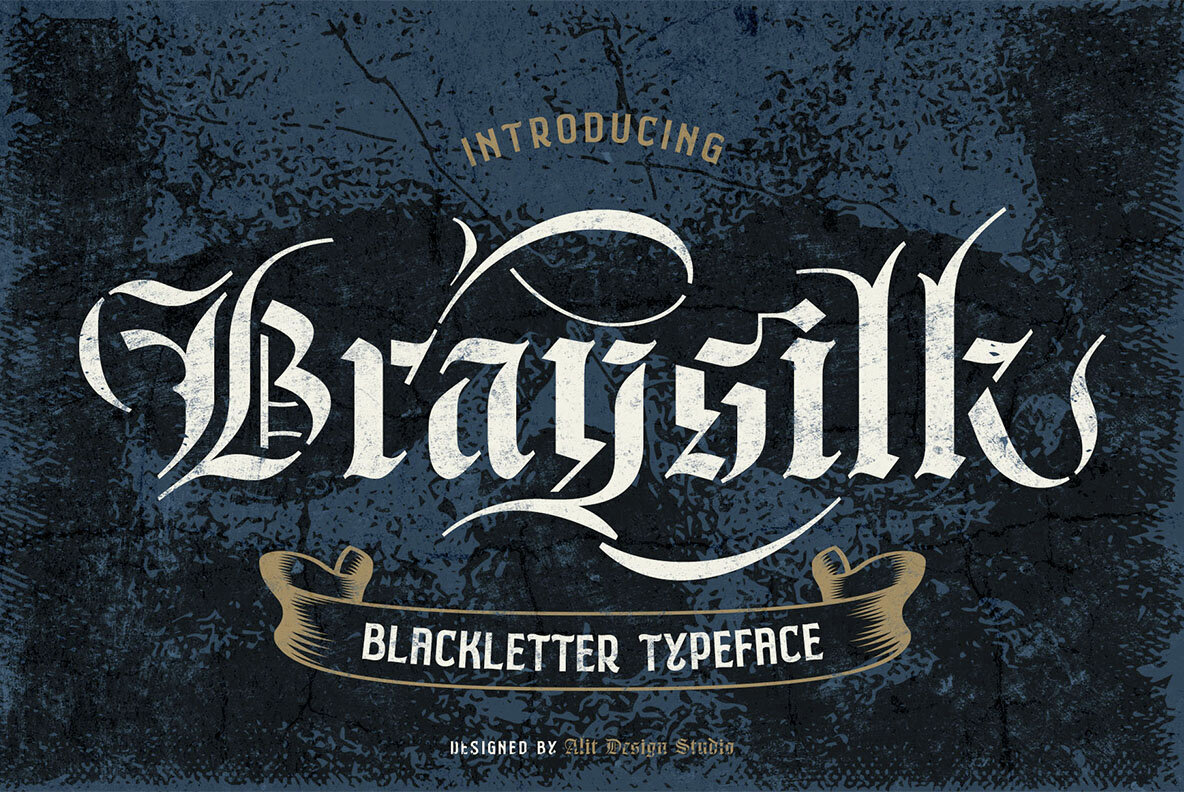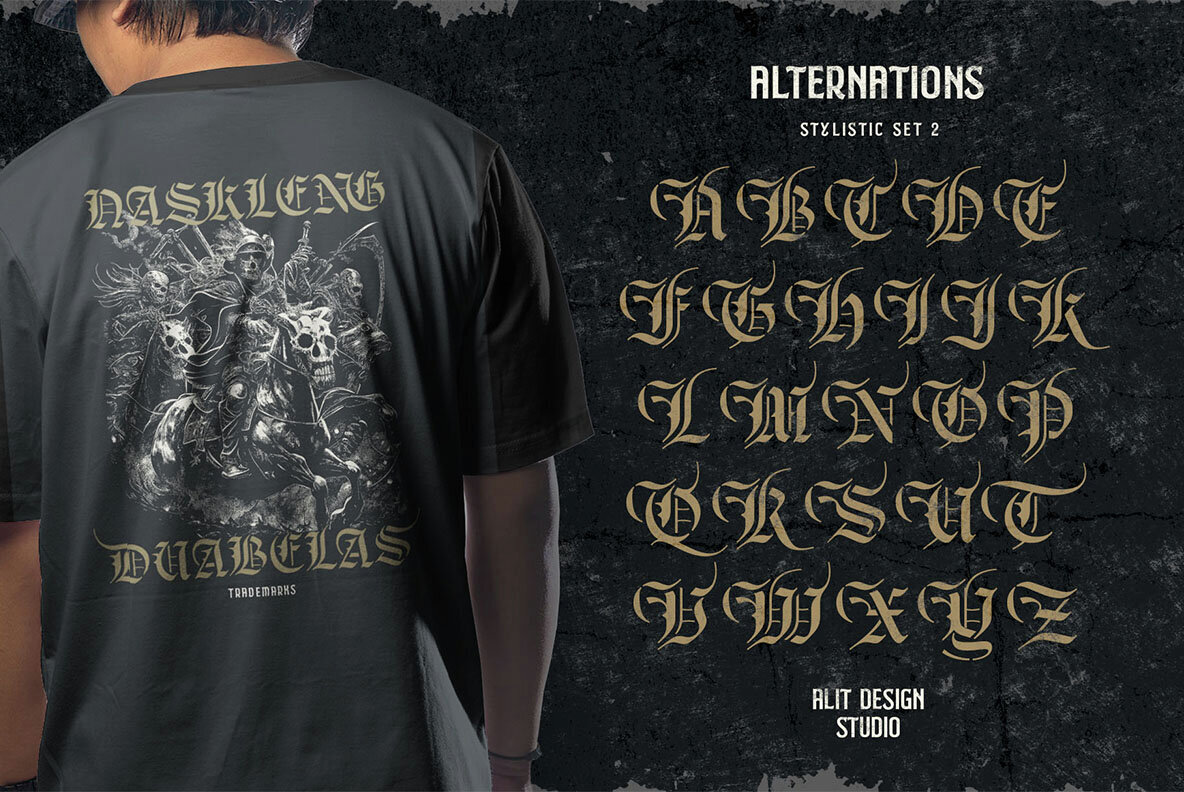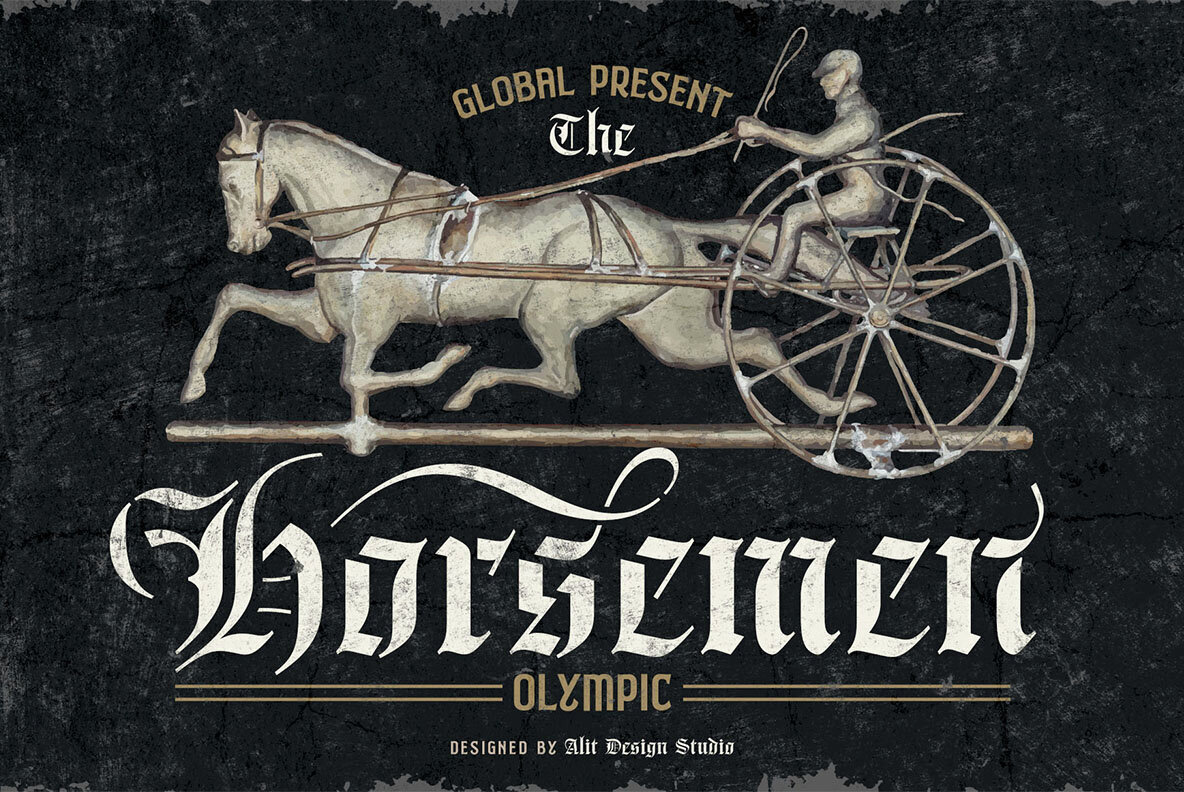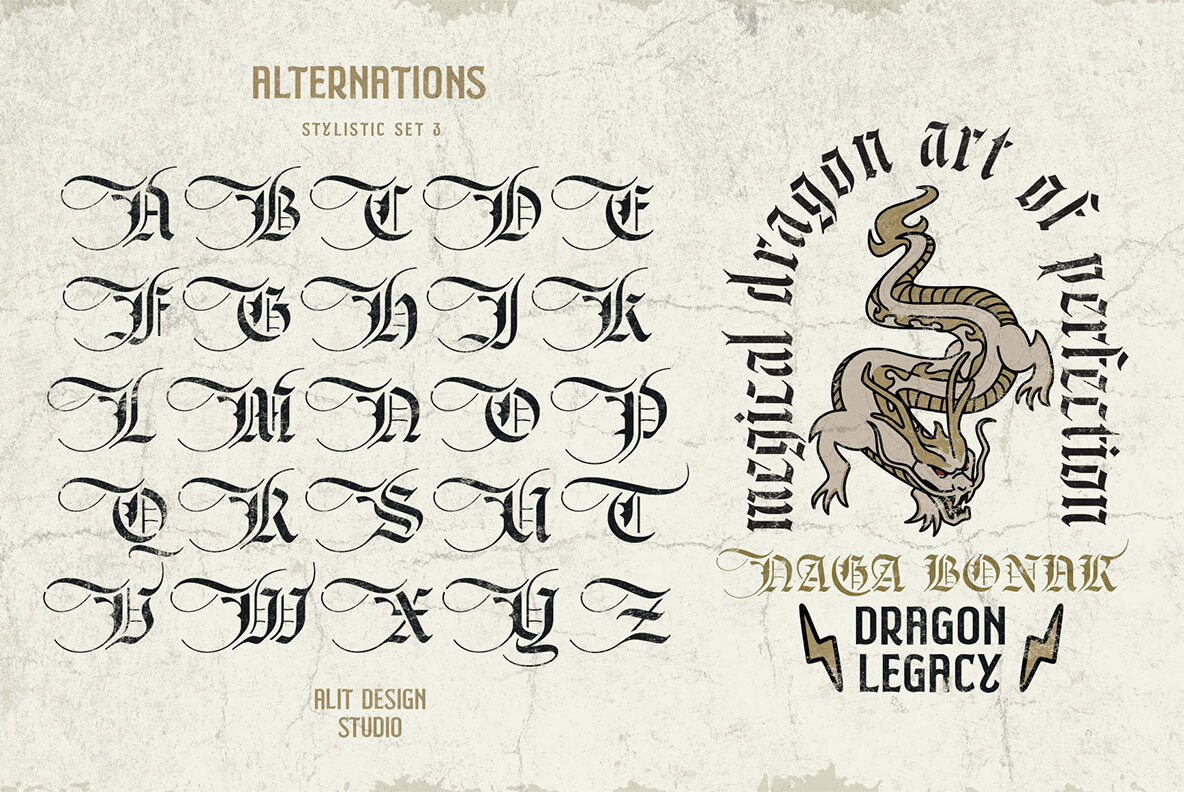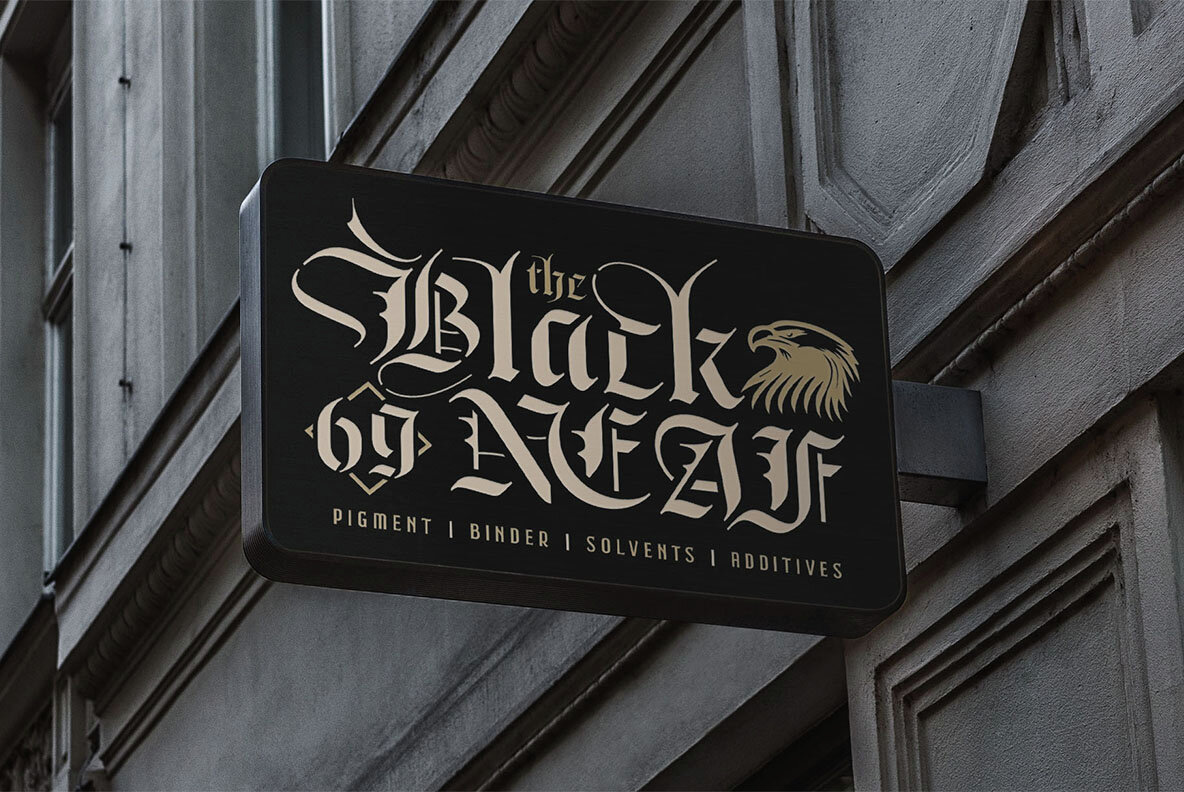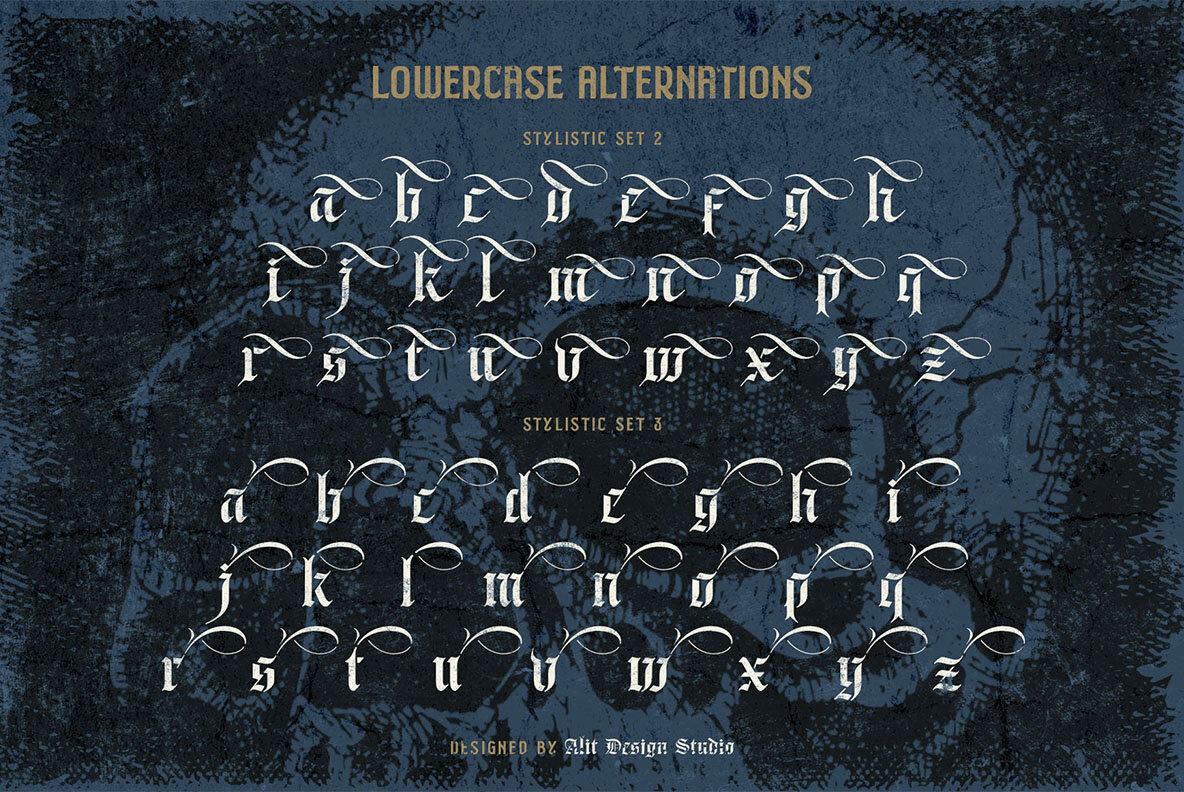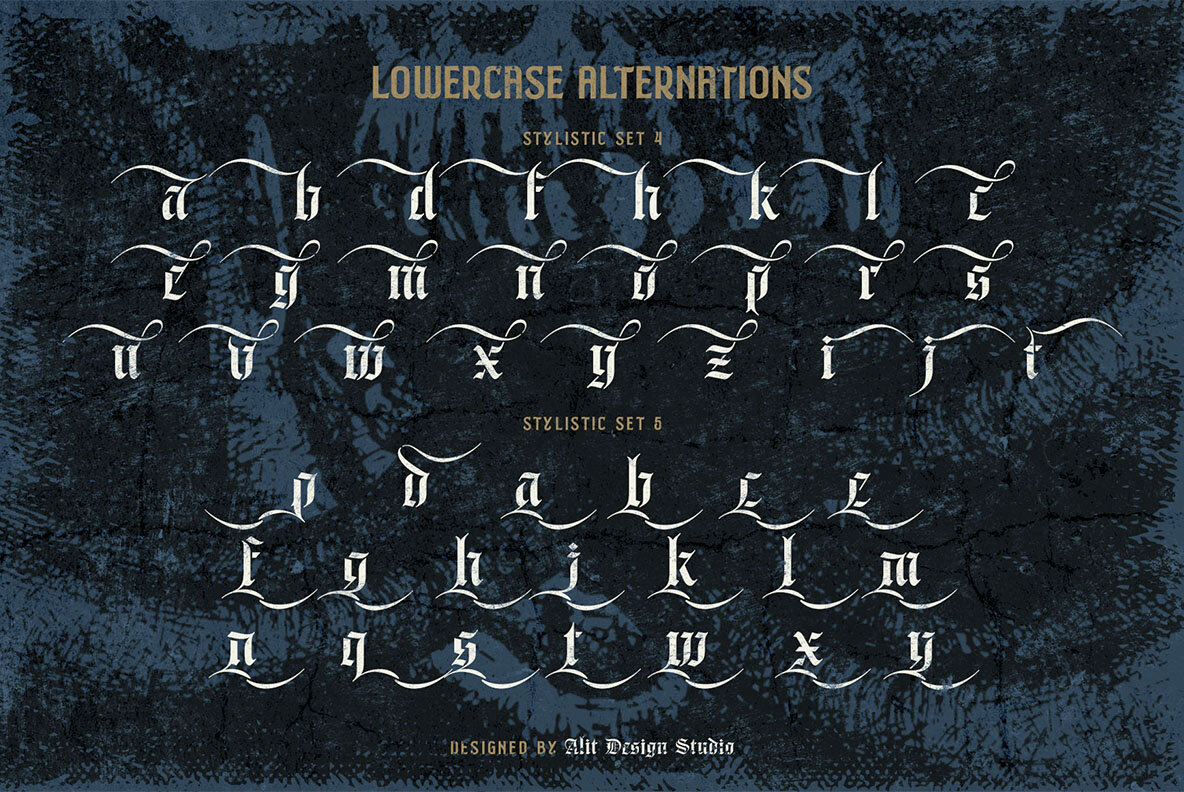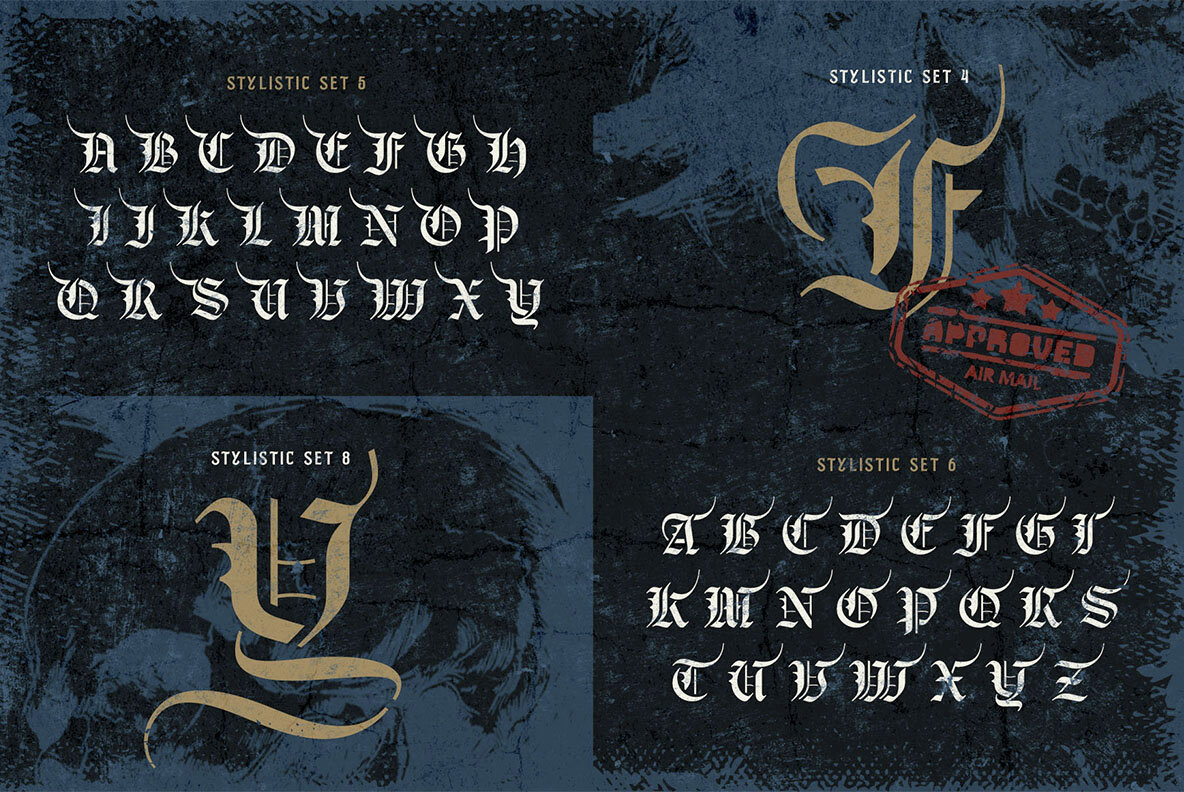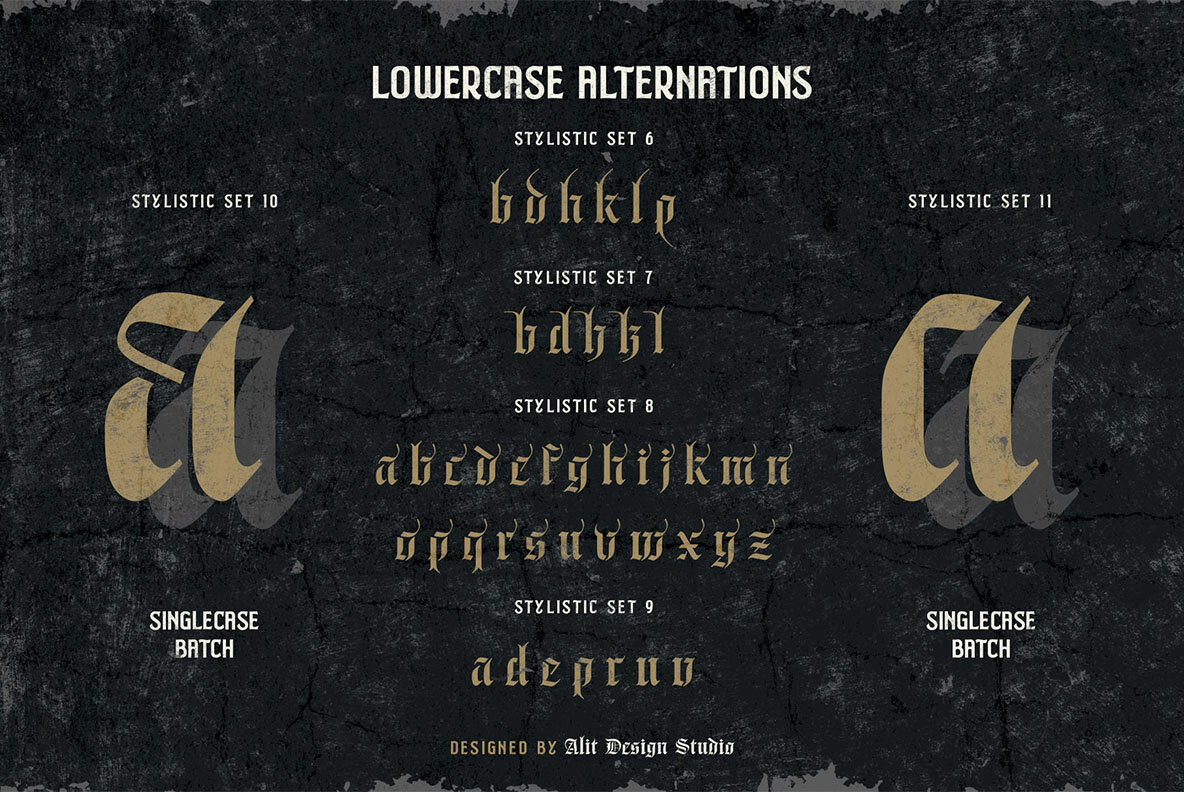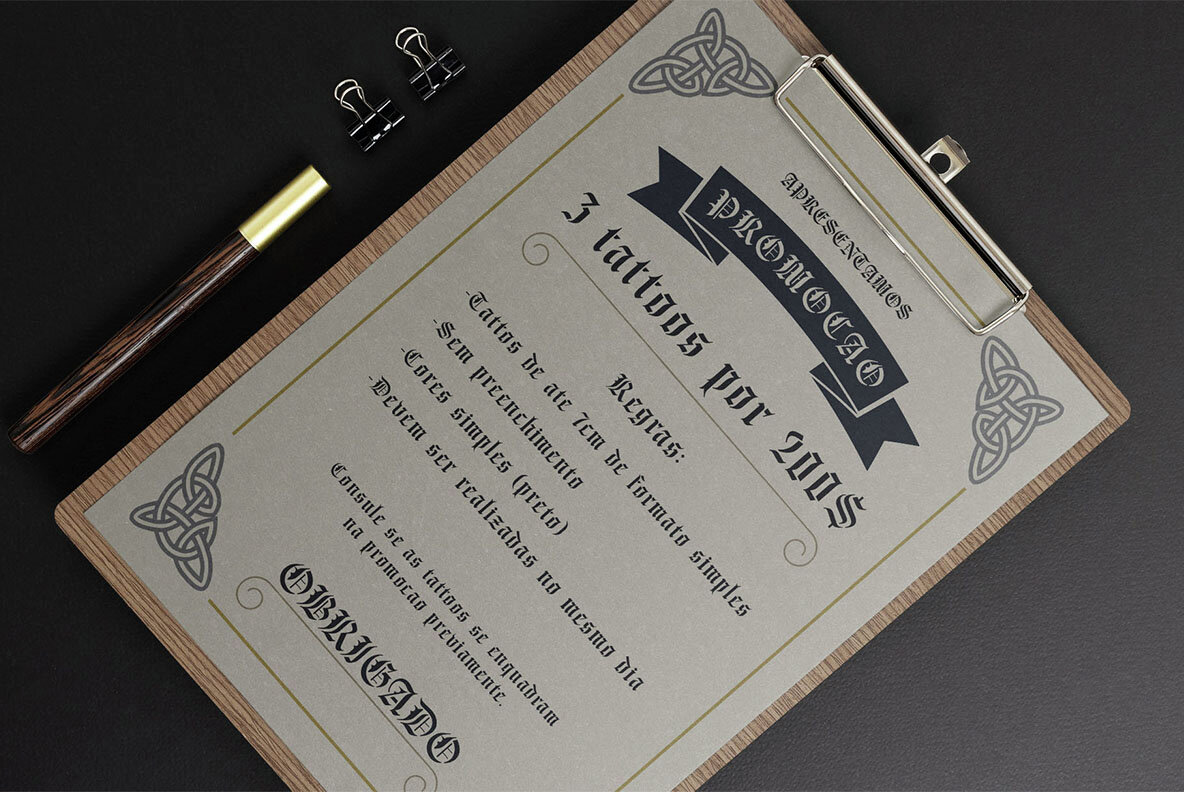
Braysilk Font
Braysilk Regular
Braysilk is a meticulously designed blackletter stencil typeface that merges historical gothic roots with a modern industrial edge. It's crafted for anyone in search of a bold and rebellious look, making it perfect for branding ventures, album covers, tattoos, posters, and other impactful visual projects. The font features sharp, detailed precision with distinct stencil cuts, capturing both traditional and contemporary essence.
Key Features:
- 910 Glyphs: An extensive collection that offers full design flexibility.
- Ligatures: Ensures smooth, natural letter combinations for better readability and flow.
- Swashes: Decorative embellishments that enhance the artistic quality of your text.
- Multilingual Support: Adapts easily to a wide range of languages for international use.
- Stencil Cut Design: A raw, industrial aesthetic that retains gothic elegance.
- High Contrast & Sharp Edges: Provides balanced strokes for a striking appearance.
Braysilk's versatility suits both vintage and modern designs. Use it for branding and logos to establish a unique identity with gothic flair. It fits perfectly in apparel and merchandise for streetwear and rock/metal themes, as well as posters, album covers, and medieval-themed publications for a dramatic impact. Enhance signage and packaging with its rich, historical yet modernized feel. This typeface embodies an attitude of power, rebellion, and sophistication, ideal for metal music scenes, high-fashion streetwear, or vintage gothic styles. Unleash the bold character of Braysilk and create a statement with every letter.